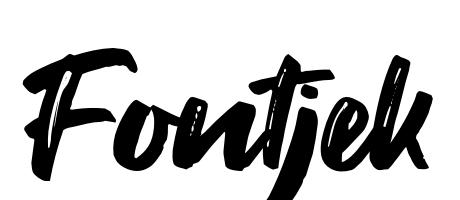
Fontjek
Fontjek: A bold, expressive script font with a playful, slightly messy feel. Its thick strokes and dynamic letterforms convey energy and a handmade quality. The letters are interconnected, creating a fluid, cursive-like effect. It suggests a youthful, informal, and perhaps slightly rebellious personality.